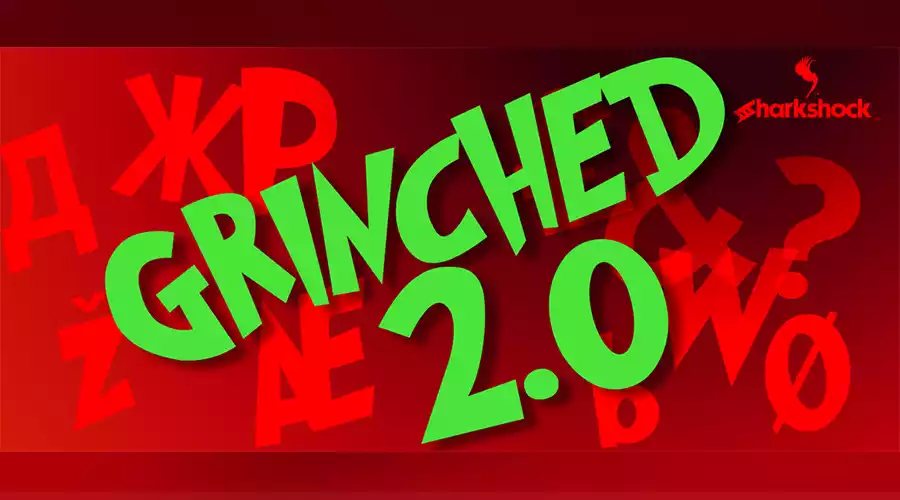
About Grinched 2.0 Font
Grinched 2 is a hand-drawn font created by Dennis Ludlow from Sharkshock fonts. It features irregular shapes, curves, and angles that mimic the style of the original Grinch illustrations. The font also has some decorative elements, such as snowflakes, stars, and hearts, that add some extra flair to your text. It is perfect for creating festive posters, cards, invitations, banners, logos, and more. You can use it to convey a playful, humorous, or sarcastic tone to your designs.
According to the designer, it supports basic and extended Latin; numbers, punctuation, European accents, diacritics, Cyrillic, and kerning are included in the full version. Basic Latin, numbers, and limited punctuation are included in the free demo.
In conclusion, Grinched 2.0 is distributed here as a personal-use demo with irregular shapes and decorative elements that draws inspiration from the Grinch illustrations. It is ideal for creating fun and festive designs with various languages and characters.
What the Grinched 2.0 demo includes
Grinched 2.0 is Sharkshock’s redrawn cartoon display design. The stored filename explicitly says DEMO, and the creator’s release note describes a limited free demo alongside a fuller licensed version. That distinction should stay visible: the preview is useful for testing a title, but it should not be presented as an unrestricted commercial font.
The energetic curves suit short holiday, cartoon, children’s-event, and novelty titles. Test lowercase, punctuation, accents, and Cyrillic only if your licensed version includes them. Decorative letterforms are most effective at display size; keep instructions, dates, prices, and accessibility-critical text in a simpler companion face.